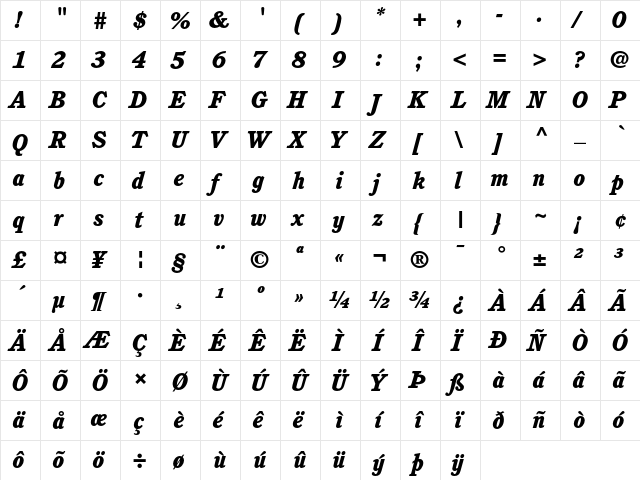
ITC Cushing Heavy Italic Font Preview
ITC Cushing Heavy Italic
ITC Cushing Heavy Italic Font Details
| Style | Heavy Italic |
Design Context for ITC Cushing Typeface
ITC Cushing is a composed and adaptable typeface that performs quietly and consistently across a wide range of design contexts. The dynamic lean of this cut emphasises speed and emphasis in any layout.